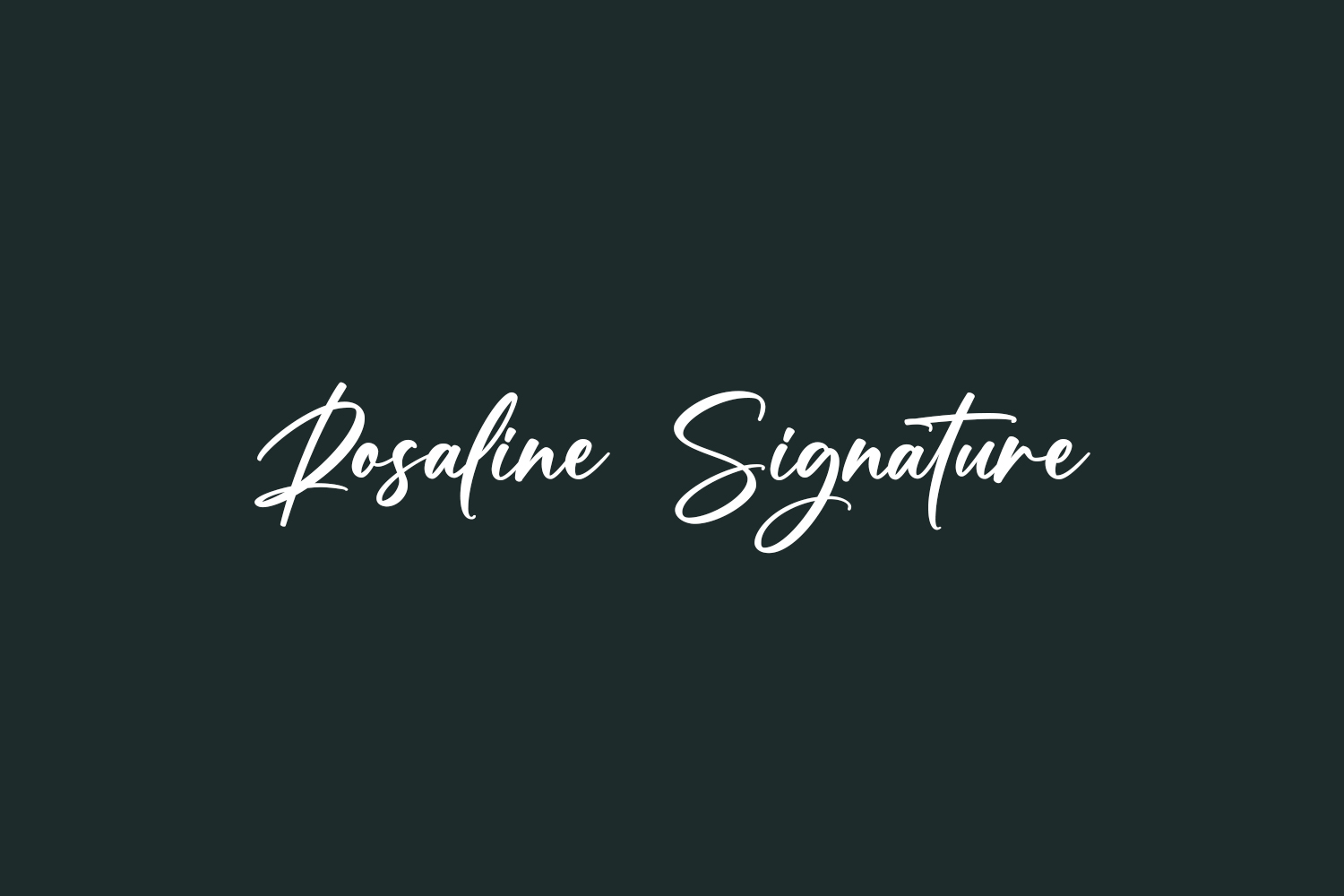
Rosaline Signature Free Font is a beautiful, well balanced and stylish script font. It is defined by smooth curves and is perfect for fashion branding or editorial designs. Rosaline Signature Free Font is free for personal use only. Please purchase the full version for commercial use.
Designed by Graphix Line Studio